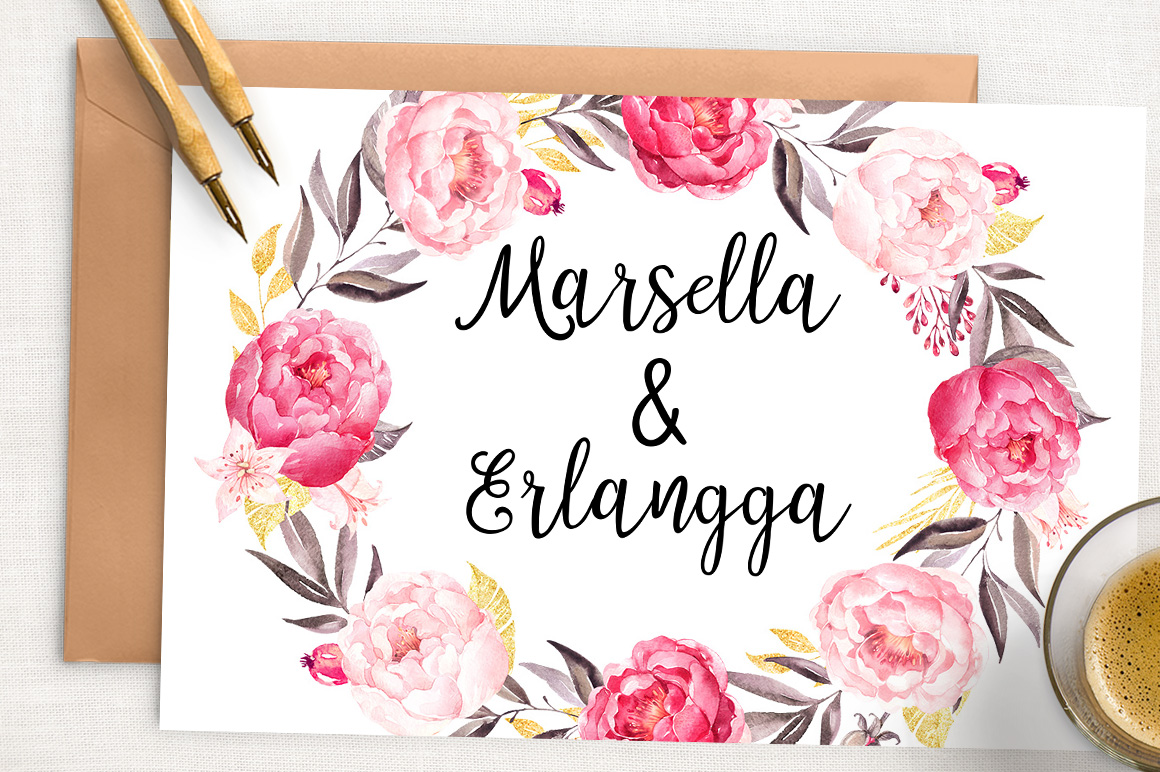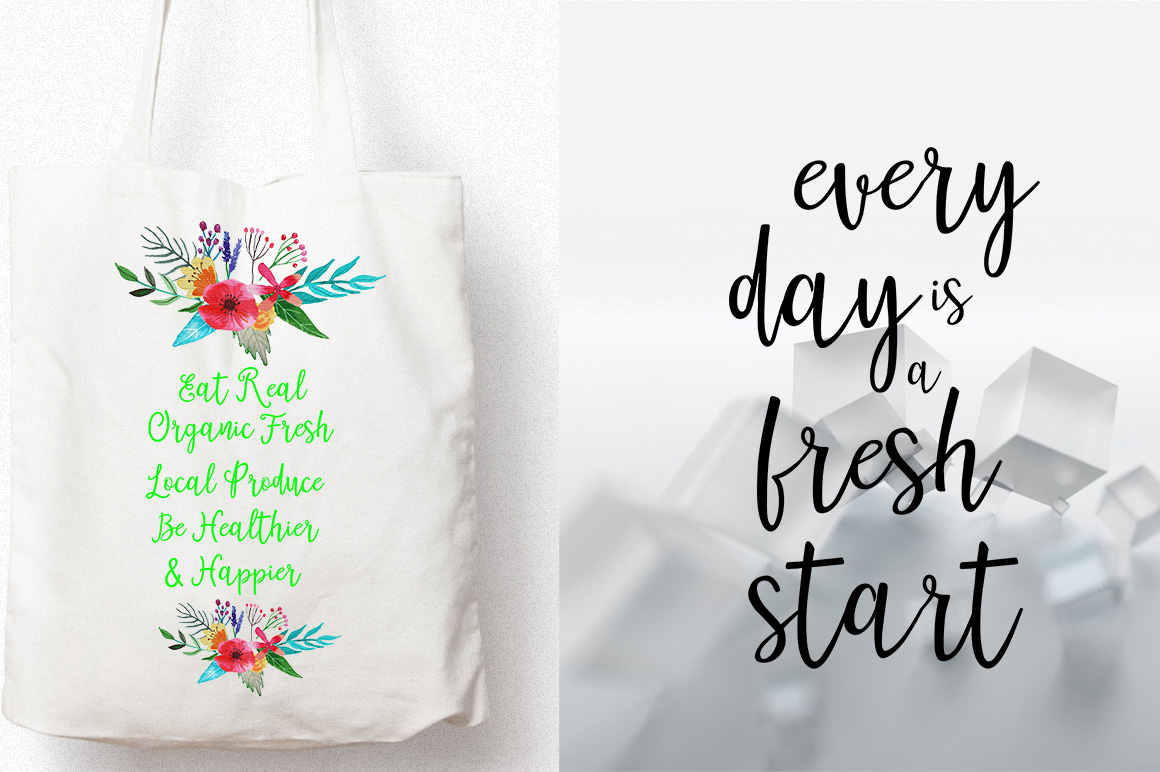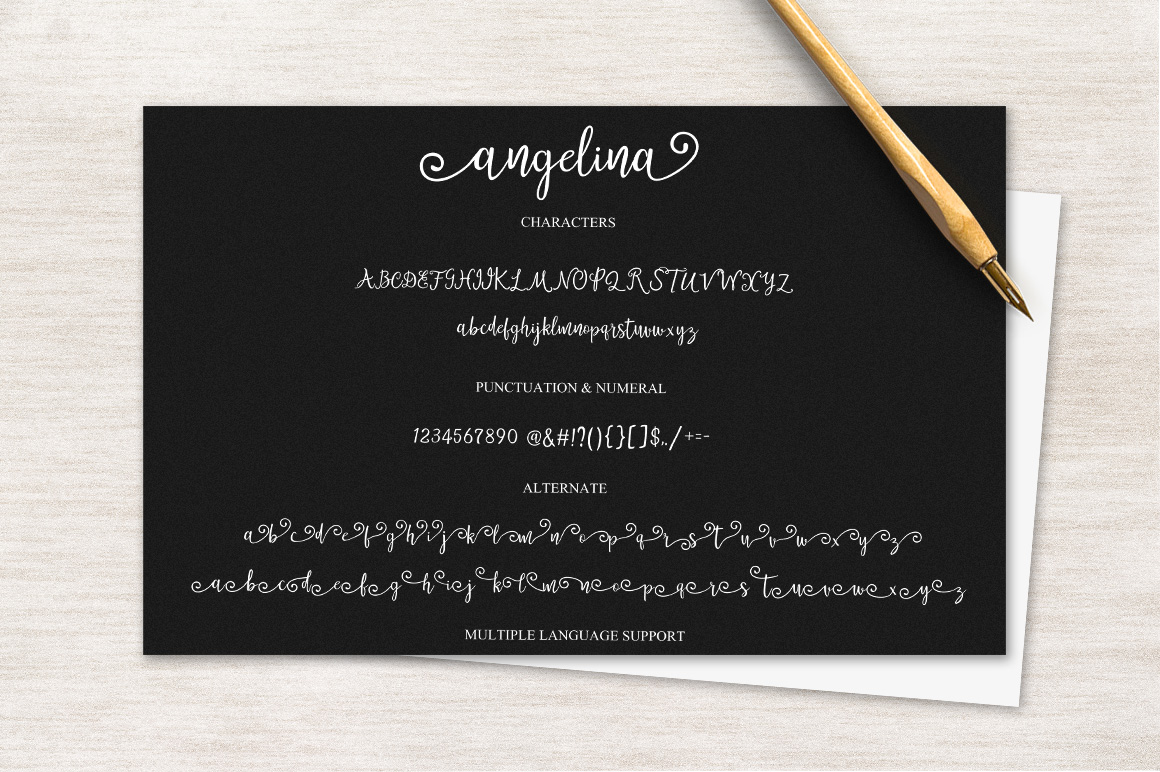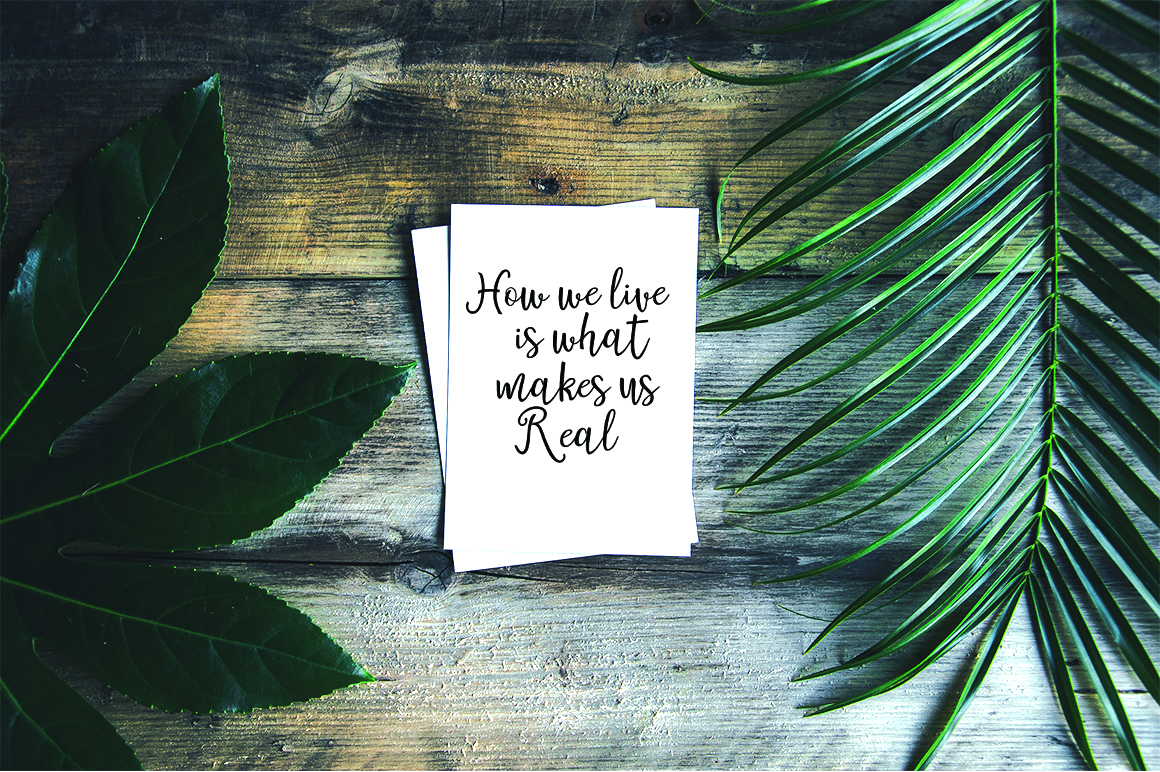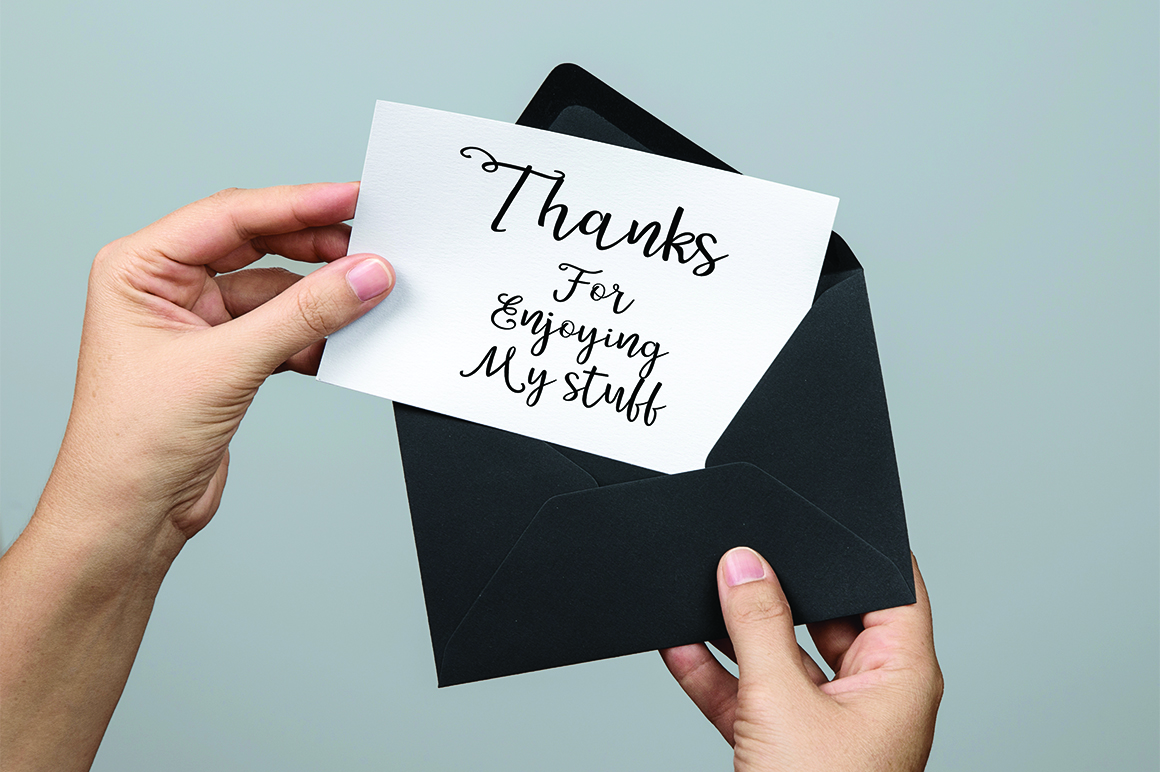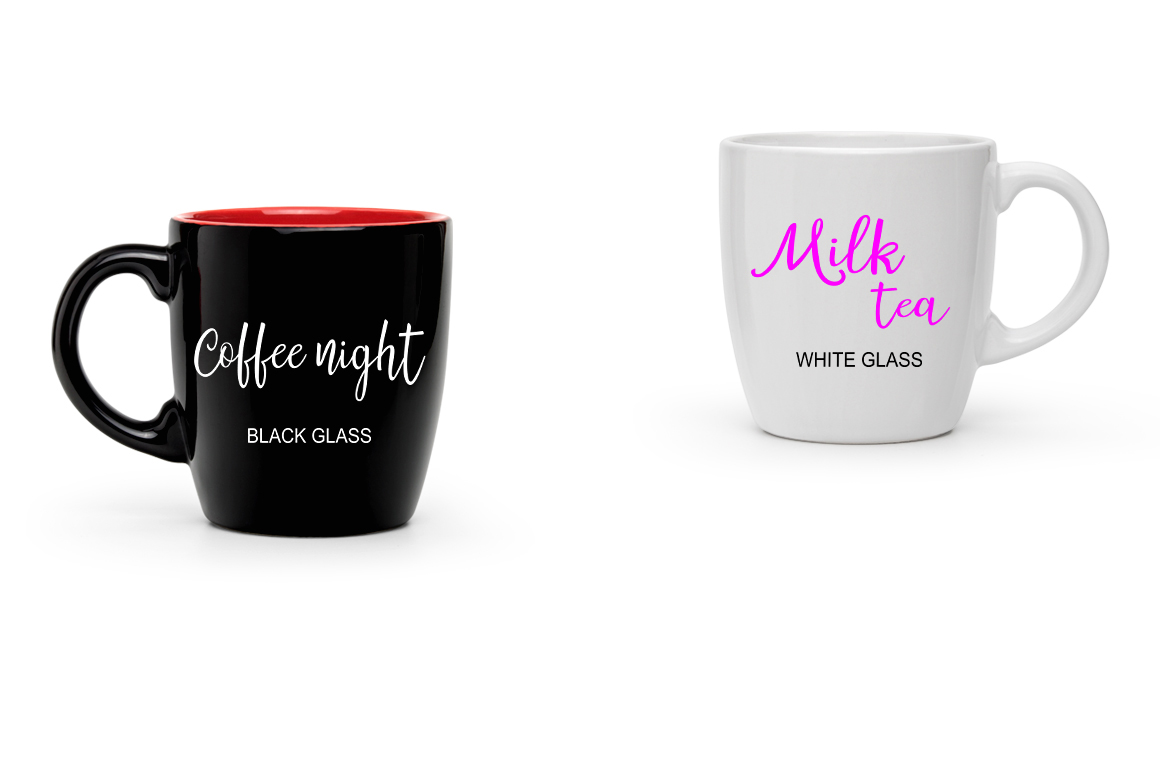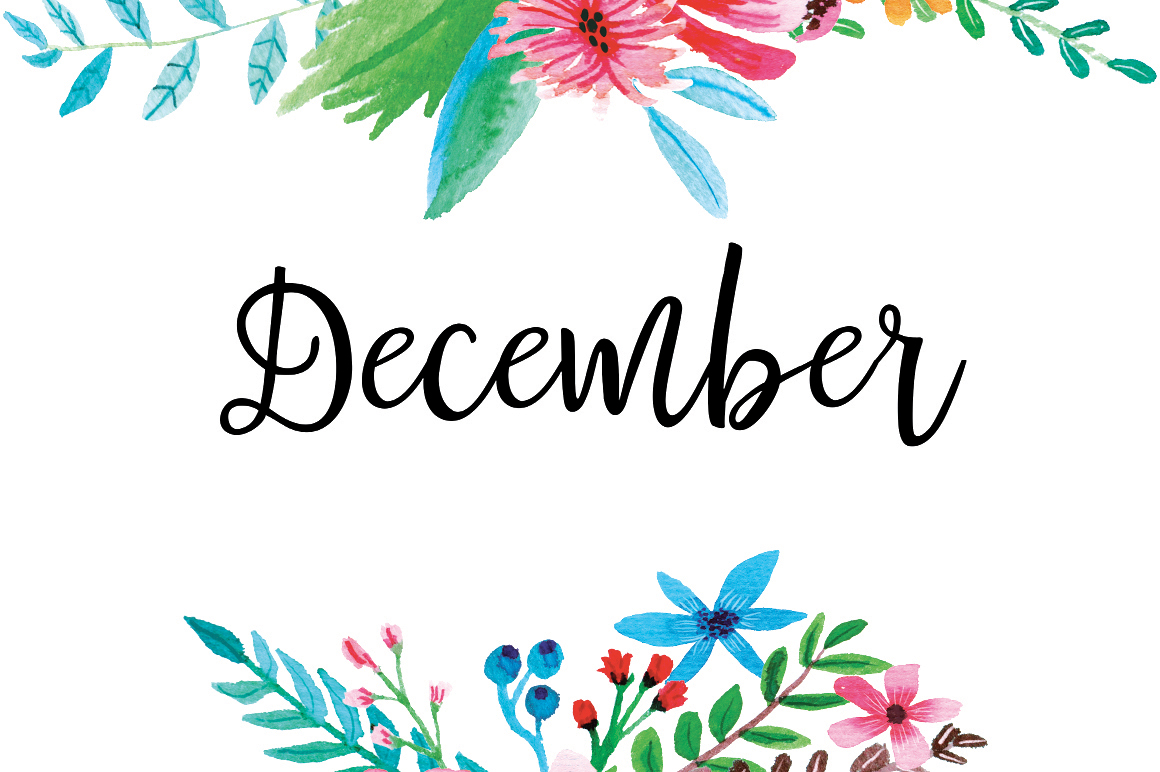
Angelina Script Font
About Angelina Script Font
Angelina Script is a new modern script font with an irregular baseline. Trendy and feminine style. Angelina looks lovely in any way you use it–this is a stunning and beautiful script with tons of possibilities.